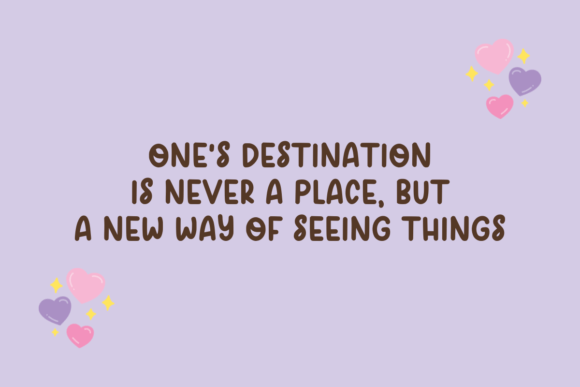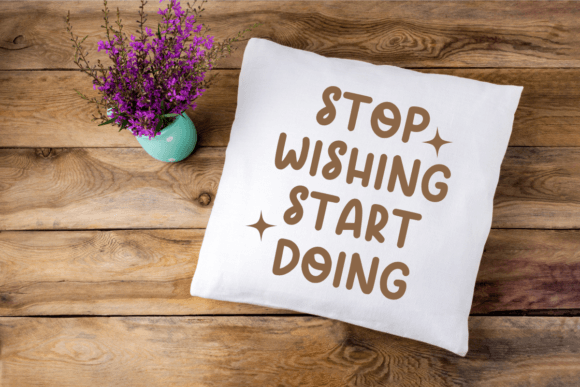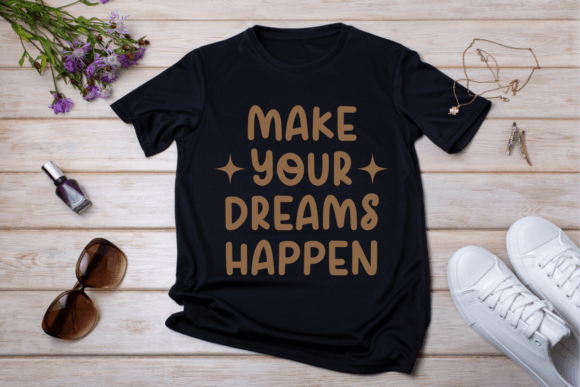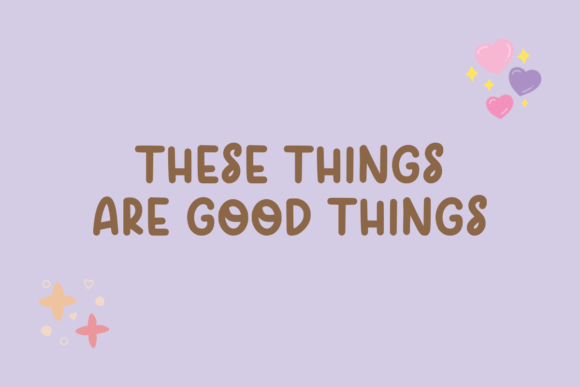
Introducing Endleaf Fancy Font: The Perfect Addition to Your Creative Projects
Are you a designer, crafter, or DIY enthusiast looking for a unique and adorable font to elevate your creative projects? Look no further than Endleaf Fancy Font, a cute sans serif font that’s perfect for a wide range of applications. In this article, we’ll explore the features and benefits of Endleaf Fancy Font, and show you how it can be used to add a touch of personality to your stickers, notes, planners, SVG quotes, t-shirts, wall art, Cricut projects, craft, embroidery, posters, cards, and many other ideas.
What is Endleaf Fancy Font?
Endleaf Fancy Font is a modern sans serif font that’s designed to be both clean and playful. Its rounded edges and soft curves give it a friendly and approachable feel, making it perfect for projects that require a touch of whimsy and charm. The font is highly versatile and can be used for both personal and commercial projects, making it a great addition to any designer’s or crafter’s toolkit.
Key Features of Endleaf Fancy Font
- Cute and Playful Design: Endleaf Fancy Font features a unique and adorable design that’s sure to capture the attention of your audience.
- Sans Serif Style: The font’s clean and modern sans serif style makes it perfect for a wide range of applications, from digital projects to print materials.
- Easily Readable: The font is highly legible, even at small sizes, making it perfect for projects that require a lot of text.
Uses for Endleaf Fancy Font
Endleaf Fancy Font is perfect for a wide range of creative projects, including:
- Stickers: Add a touch of personality to your stickers with Endleaf Fancy Font’s cute and playful design.
- Notes and Planners: Use Endleaf Fancy Font to add a touch of whimsy to your notes and planners.
- SVG Quotes: Create beautiful SVG quotes with Endleaf Fancy Font’s clean and modern design.
- T-Shirts and Apparel: Use Endleaf Fancy Font to create unique and eye-catching designs for t-shirts and other apparel.
- Wall Art: Add a touch of personality to your wall art with Endleaf Fancy Font’s playful design.
- Cricut Projects: Use Endleaf Fancy Font to create custom Cricut projects, such as vinyl decals and iron-on designs.
- Craft and Embroidery: Use Endleaf Fancy Font to add a touch of personality to your craft and embroidery projects.
- Posters and Cards: Use Endleaf Fancy Font to create eye-catching posters and cards for any occasion.
Tips for Using Endleaf Fancy Font
Here are a few tips for getting the most out of Endleaf Fancy Font:
- Experiment with Different Sizes: Endleaf Fancy Font looks great at a wide range of sizes, so don’t be afraid to experiment and find the perfect size for your project.
- Pair with Other Fonts: Endleaf Fancy Font pairs well with a wide range of other fonts, so try combining it with other fonts to create a unique and eye-catching design.
- Use in Combination with Images: Endleaf Fancy Font looks great in combination with images, so try using it to add a touch of personality to your photos and illustrations.